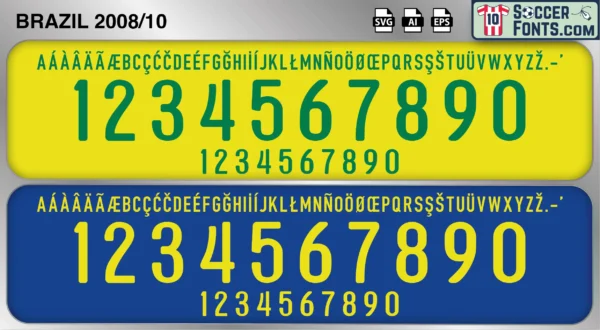
Brazil 2008-10 Font
The Brazil 2008-10 font is an editable soccer jersey lettering design in vector format inspired by the Brazil kit style used during the 2008-10 football seasons. This football font artwork is prepared for football shirt recreations, custom jersey projects, football kit mockups and sports graphic design workflows.
The 2008-10 era was defined by Brazil’s preparation for the 2010 FIFA World Cup in South Africa under manager Dunga. During this period, Brazil developed a disciplined and competitive squad built around players such as Kaká, Robinho, Lúcio, Júlio César, Maicon and Dani Alves. The team achieved notable success by winning the 2009 FIFA Confederations Cup after a dramatic comeback victory against the United States in the final. Brazil also produced an impressive World Cup qualification campaign and entered the 2010 tournament as one of the favorites to challenge for international football’s biggest prize.
The Brazil 2008-10 font became associated with the road to the 2010 World Cup and one of the most recognizable international football eras of the late 2000s. Brazil shirts from this period remain highly collectible because of their connection with the Confederations Cup triumph, South Africa 2010 nostalgia and the final major international tournament of several iconic Brazilian players. The Brazil 2008-10 font is closely linked with a period when Brazil balanced traditional football heritage with a more pragmatic style, creating a unique chapter in the history of the national team and modern international football culture.